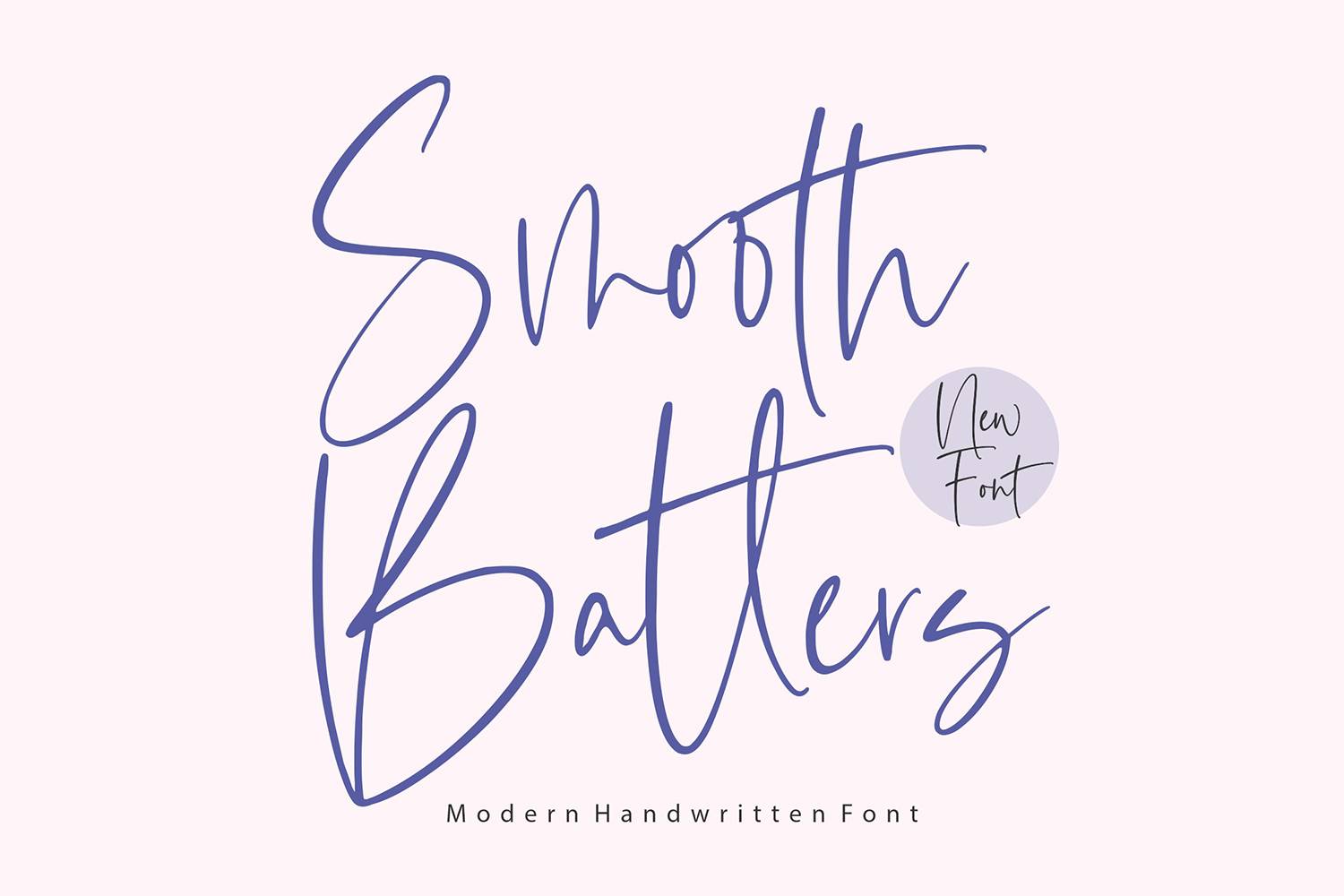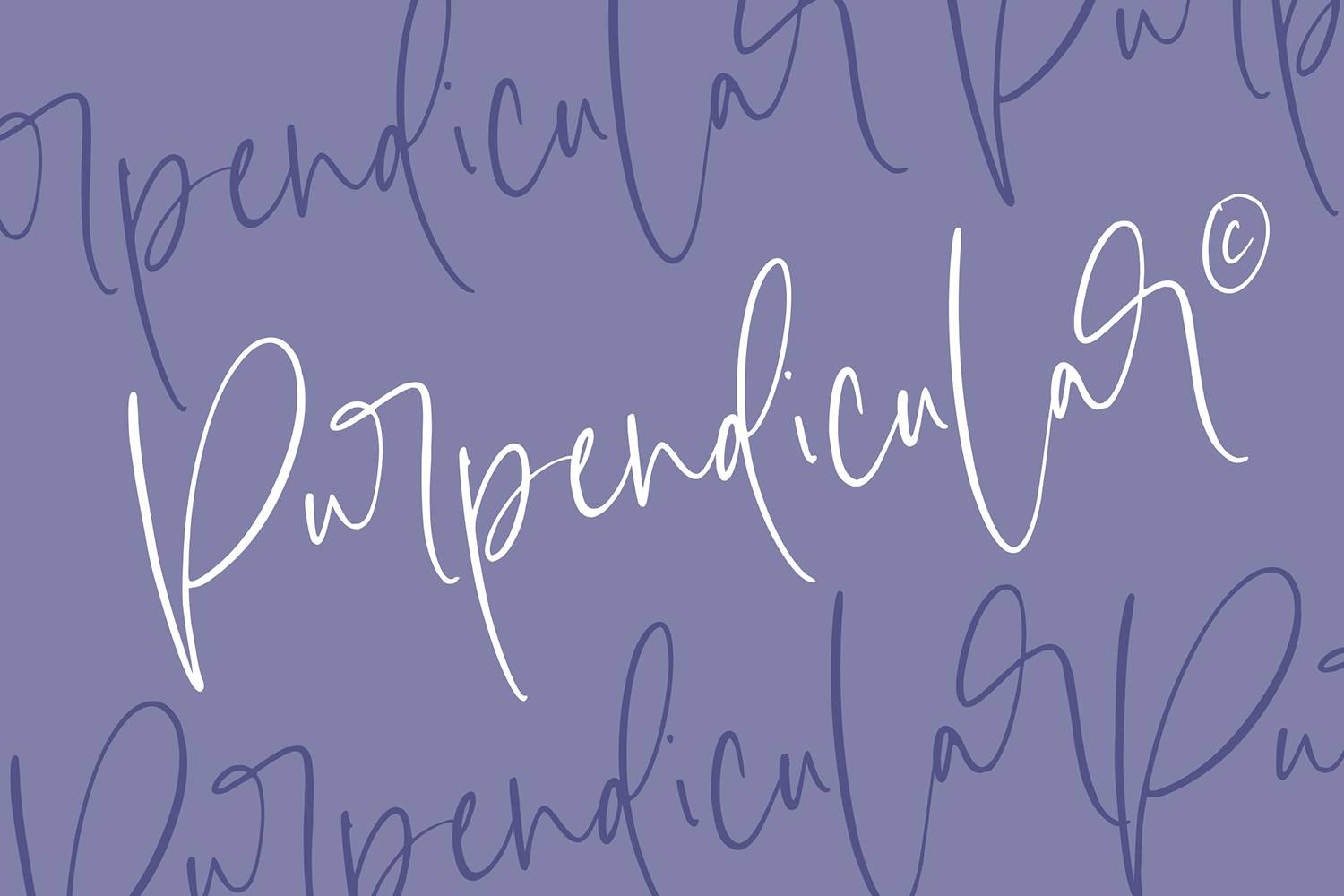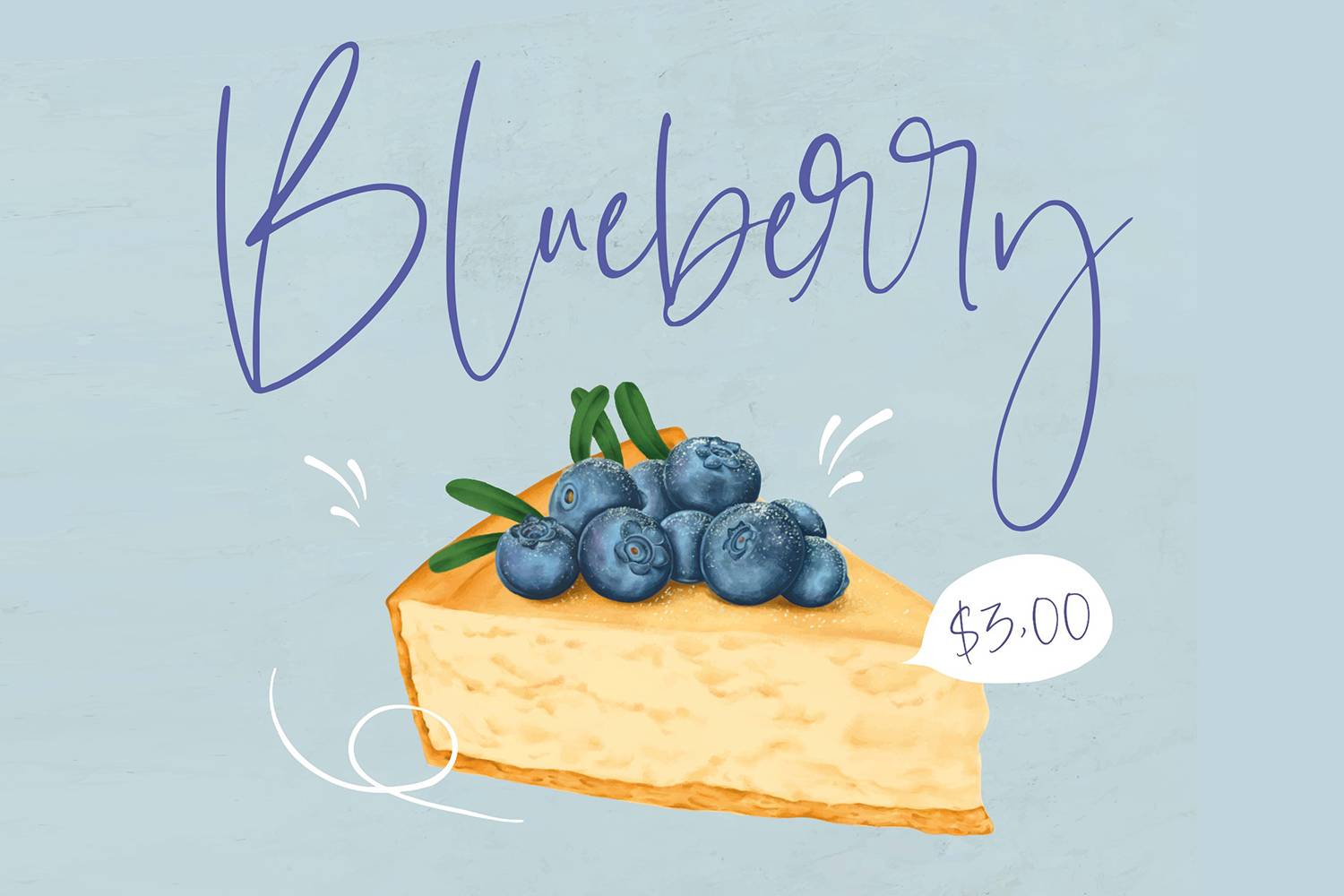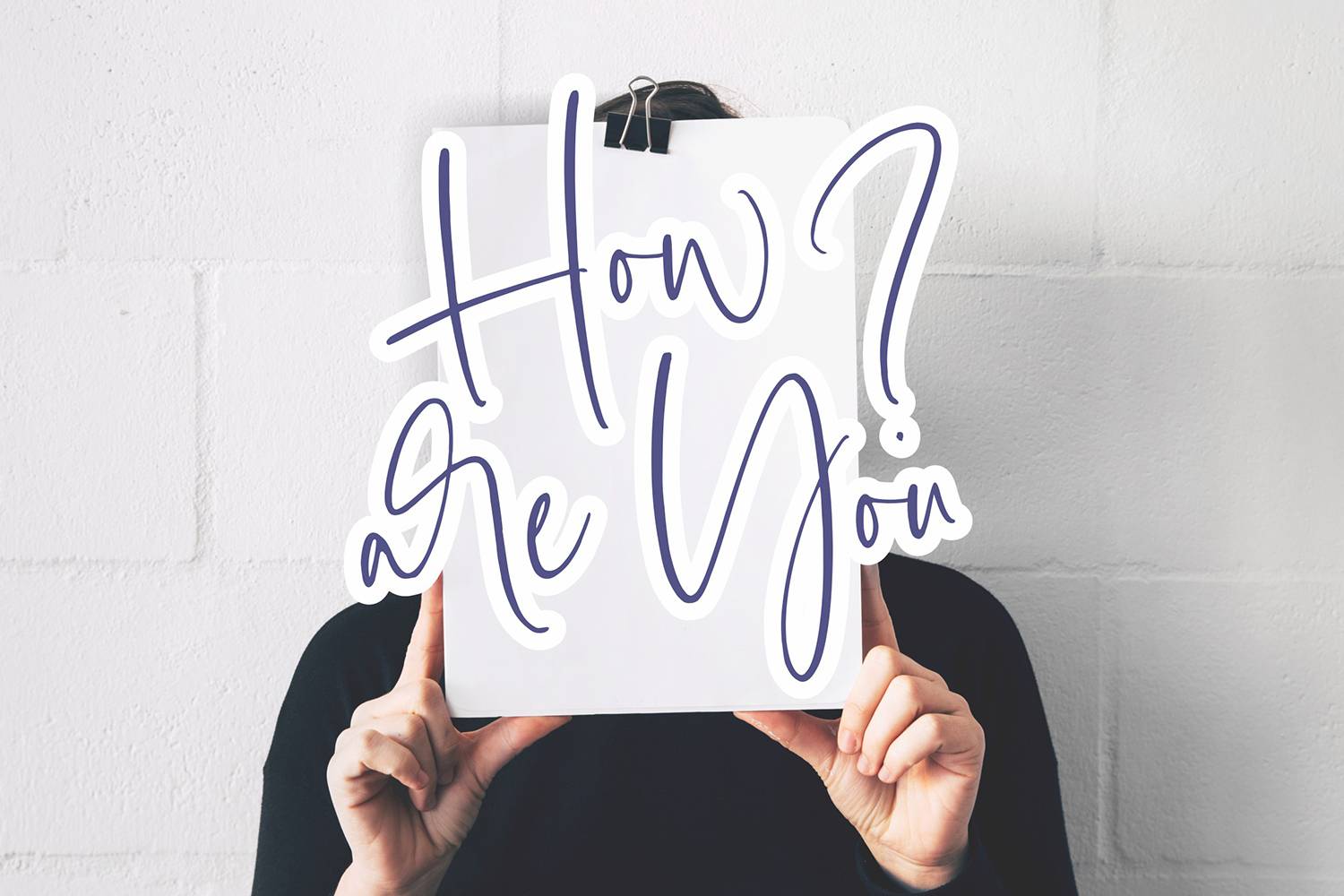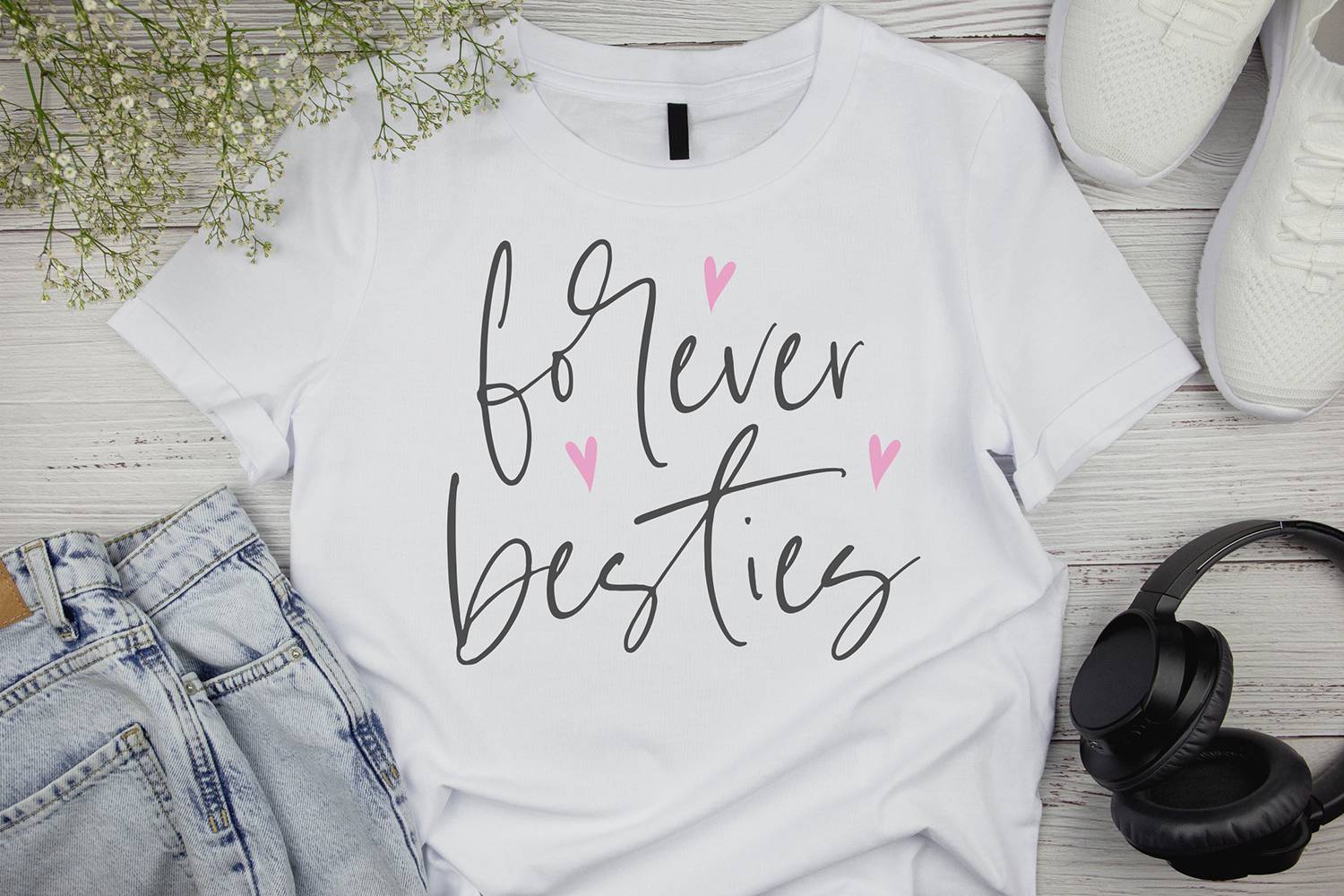
Smooth Batters is a delicate, handwritten script font characterized by its thin, flowing strokes and elegant, airy letterforms that convey a sense of casual sophistication. Its tall x-height and slightly irregular lines add a personal, artistic touch, making it perfect for creative branding, invitations, and stylish editorial projects. This font brings a modern, organic feel that works best in designs seeking a graceful, approachable, and unique aesthetic.
Smooth Batters Font
About Smooth Batters Font